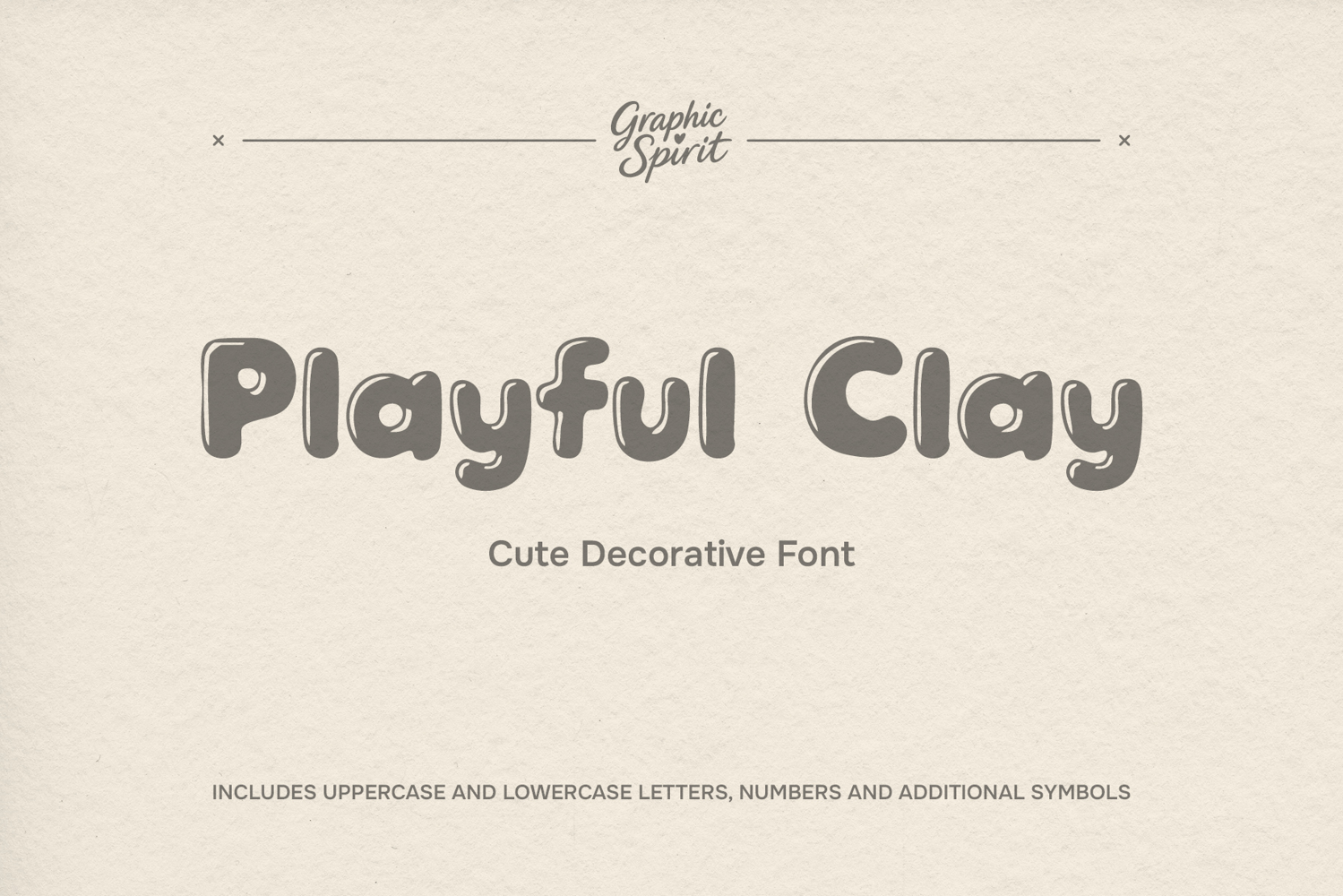
Playful Clay Cute Decorative Font
✨ Add a touch of handmade charm to your projects with our Playful Clay Cute decorative font! This adorable digital font features unique, irregular letterforms that mimic the look of real clay, giving your designs a warm, whimsical, and utterly delightful feel. Perfect for everything from kids' party invitations to heartfelt branding.
🎨 It includes uppercase, lowercase, numbers, and punctuation, ensuring you have everything you need to start creating. Elevate your logos, social media quotes, and DIY craft projects with this irresistibly cute typography! 💖